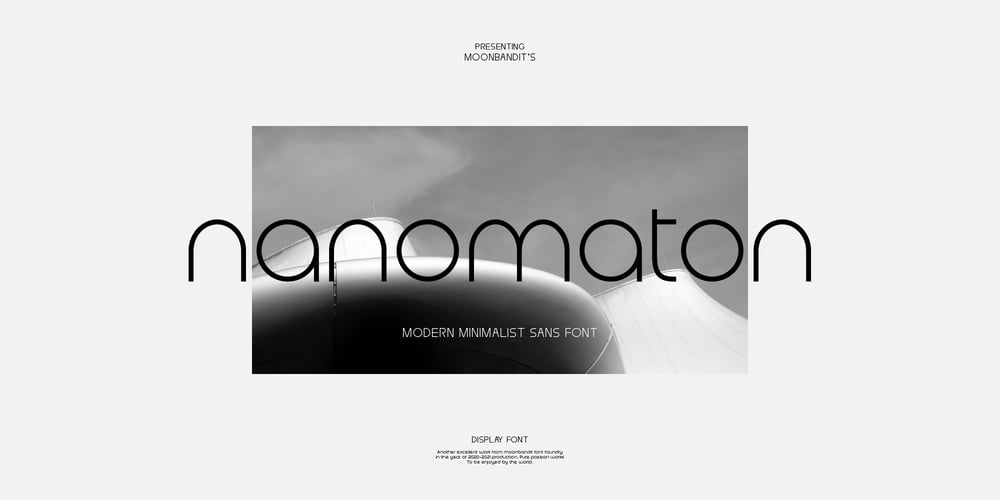
MBF Nanomaton
MBF Nanomaton font
MBF Nanomaton Font Family was designed by Bramaji Dipa Manggala and published by Moonbandit. MBF Nanomaton contains 1 styles and family package options. Nanomaton is a thin modern minimalist sans serif display font, with a lot of geometric shape and a bit of futuristic scifi flair. This typeface is versatile enough to be applied to multi-purpose projects. Nanomaton emphasize on clean, clarity and minimalism.